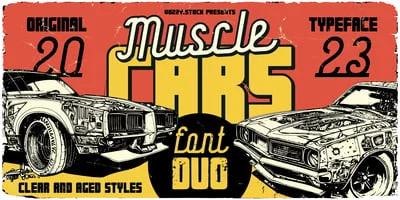
Muscle Cars Font
The Muscle Cars Font is a powerfully bold and dynamic display typeface, specifically designed to capture the raw energy, speed, and aggressive aesthetic of classic American muscle cars. Imagine its commanding characters dominating posters for automotive events, adding an authentic, high-octane edge to car show branding, or creating impactful titles for racing video games and motorsport documentaries. Its robust construction, often with a condensed or slightly italicized form to suggest motion, also makes it an excellent choice for unique apparel design for car enthusiasts, striking product packaging for automotive accessories, and any design where a strong, unapologetic, and unforgettable visual statement is paramount. Whether you're aiming for a gritty, vintage racing vibe or a sleek, modern hot-rod aesthetic, Muscle Cars Font delivers with its unmistakable character, ensuring your visuals are both intriguing and truly memorable.
What makes Muscle Cars Font so exciting is its audacious ability to infuse designs with immediate personality and an unbridled sense of power and nostalgia. In a visual landscape that thrives on impact and thematic depth, this font offers a refreshing dive into a golden era of automotive culture. It evokes a feeling of roaring engines, open roads, and a spirit of pure American horsepower. It’s more than just a typeface; it’s a design accelerant that can instantly communicate urgency, excitement, and a powerful, cool attitude. Muscle Cars Font offers designers the opportunity to create visuals that are both visually aggressive and remarkably unique, making it an invaluable asset for those looking to communicate a sense of speed, strength, and a powerful, iconic style that resonates deeply.
The Muscle Cars Font family is typically structured to offer a range of styles that amplify its bold and impactful appeal. Beyond the primary Muscle Cars Regular typeface (which might feature a powerful, almost racing-stripe-like quality), you might find companion styles such as a more impactful Muscle Cars Bold for even stronger emphasis, or perhaps Muscle Cars Italic to provide dynamic forward motion. Given its display nature and focus on impact, the family may also include variations with different internal structures, outlines, or even layered versions that allow for multi-color effects, enhancing its three-dimensional potential. These diverse family members provide designers with the flexibility to establish a clear typographic hierarchy and maintain a consistent, high-impact, and authentically motor-culture aesthetic across all elements of their project, from dominant headlines and logos to supporting graphic elements.